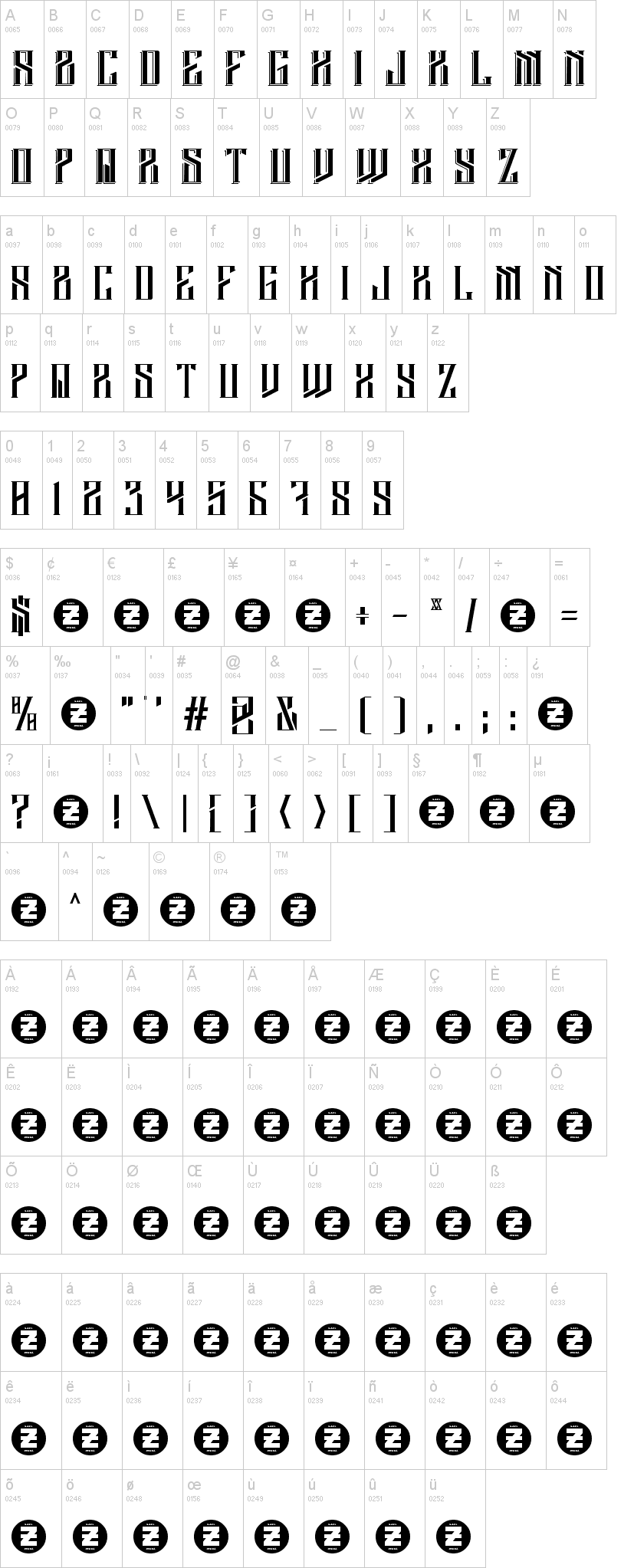
Шрифт Barbarossa
Barbarossa is a typeface inspired by the hero character named Barbarossa.
Represented from his origin, Turkishs (Architecture).
The typeface is a bold font, basically made from the structural and cubical rectangle form.